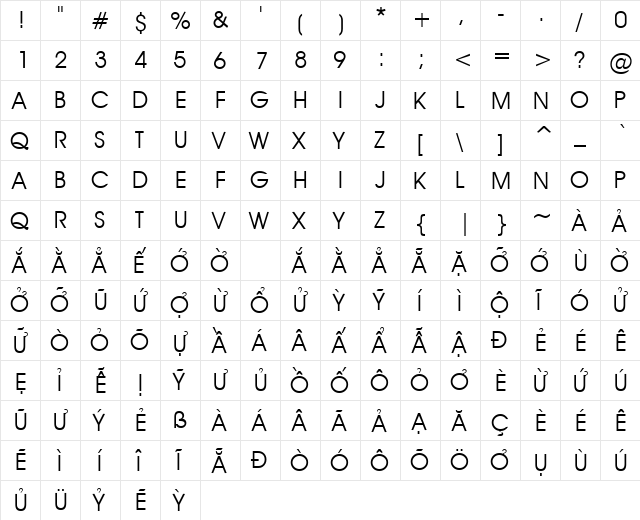
VPS Tuyen Duc Hoa Book
Design Context for VPS Tuyen Duc Hoa Typeface
VPS Tuyen Duc Hoa is a composed and adaptable typeface that performs quietly and consistently across a wide range of design contexts.